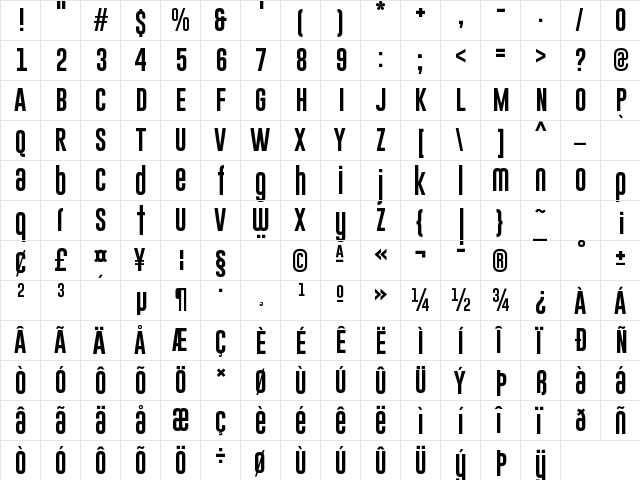
Gobold Uplow Regular
| Designer | Situjuh Nazara |
Design Context for Gobold Uplow Typeface
Gobold Uplow offers clean, dependable letterforms without strong stylistic allegiance, making it a practical choice for designers who need flexibility. Its bold stroke weight gives it real presence on the page.
Pro Tip: Pair Gobold Uplow with a font of contrasting weight or personality to build a more expressive typographic hierarchy.